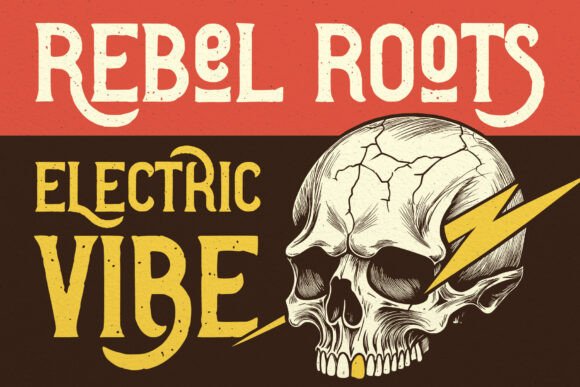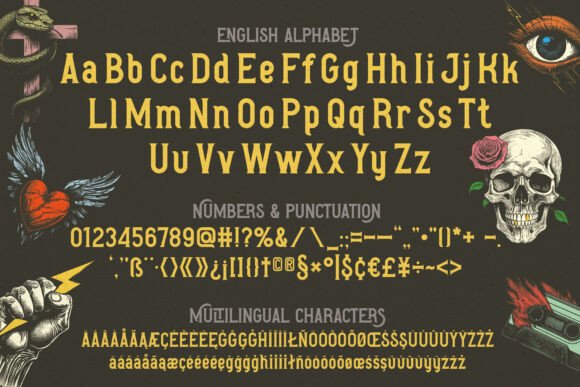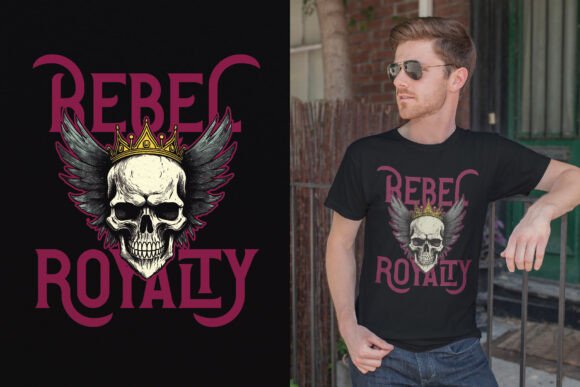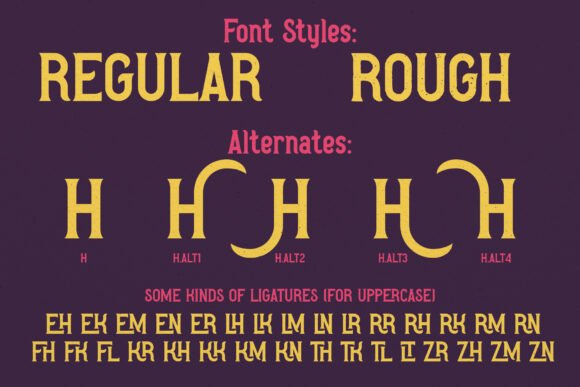
Introduction to Rebel Charm Font
Remember that moment when you’re working on a creative project and you’re stuck trying to find the perfect font to match your design’s vibe? You’ve scoured the internet for hours, searching for that one font that will elevate your design from good to great. And then, like a ray of sunshine, you stumble upon the perfect font – one that’s not only beautiful but also free to download.
Meet the Rebel Charm Font, a vintage label font that’s about to become your new go-to design resource. With its unique blend of elegance and edginess, this font family is sure to add a touch of sophistication to any design project. And the best part? It’s available in two styles – Regular and Rough – giving you the flexibility to choose the perfect look for your high-quality design.
Whether you’re working on a poster, T-shirt label, or logo, the Rebel Charm Font is the perfect choice. Its transparent background and multilingual support make it a valuable addition to any designer’s toolkit. So why wait? Download the Rebel Charm Font today and discover a whole new world of creative possibilities!
Key Features of Rebel Charm Font
- Unique, hand-drawn design ideal for creative projects and personal expression
- Features a transparent background, allowing for easy layering and customization in graphic design projects
- High-quality font with clear, readable characters and a distressed, vintage aesthetic
- Perfect for designers and artists working on creative projects, such as posters, flyers, and digital art
Honest Review: Rebel Charm Font
I recently stumbled upon the Rebel Charm Font, and I must say, it’s a great addition to any designer’s arsenal. This font is perfect for creative projects that require a touch of edginess and sophistication. Its unique style and high-quality design make it an excellent choice for designers looking for a free download to elevate their work.
- ✨ What works well: The Rebel Charm Font’s versatility and wide range of uses make it an excellent design resource. It can be used for various projects, from logo designs to print materials, and its transparent background makes it easy to work with.
- ✨ The font’s high-quality design ensures that it looks great at various sizes and resolutions, making it a reliable choice for any creative project.
However, I did encounter some limitations with the Rebel Charm Font. ⚠️ The font’s bold style can sometimes be overwhelming, and it may not be suitable for all types of projects.
Overall, I’m impressed with the Rebel Charm Font. Its unique style and high-quality design make it an excellent choice for designers looking for a free download to add some charm to their work. With its wide range of uses and transparent background, it’s definitely a design resource worth exploring.
Tips for Getting the Most Out of Rebel Charm Font
To get the most out of the Rebel Charm Font, use it with a transparent background to create a clean and minimalist design. You can also experiment with different font sizes and styles to add depth and interest to your design.
The Rebel Charm Font is perfect for creative projects such as wedding invitations, business cards, and social media graphics. Its high-quality design and transparent background make it a versatile design resource for any project.